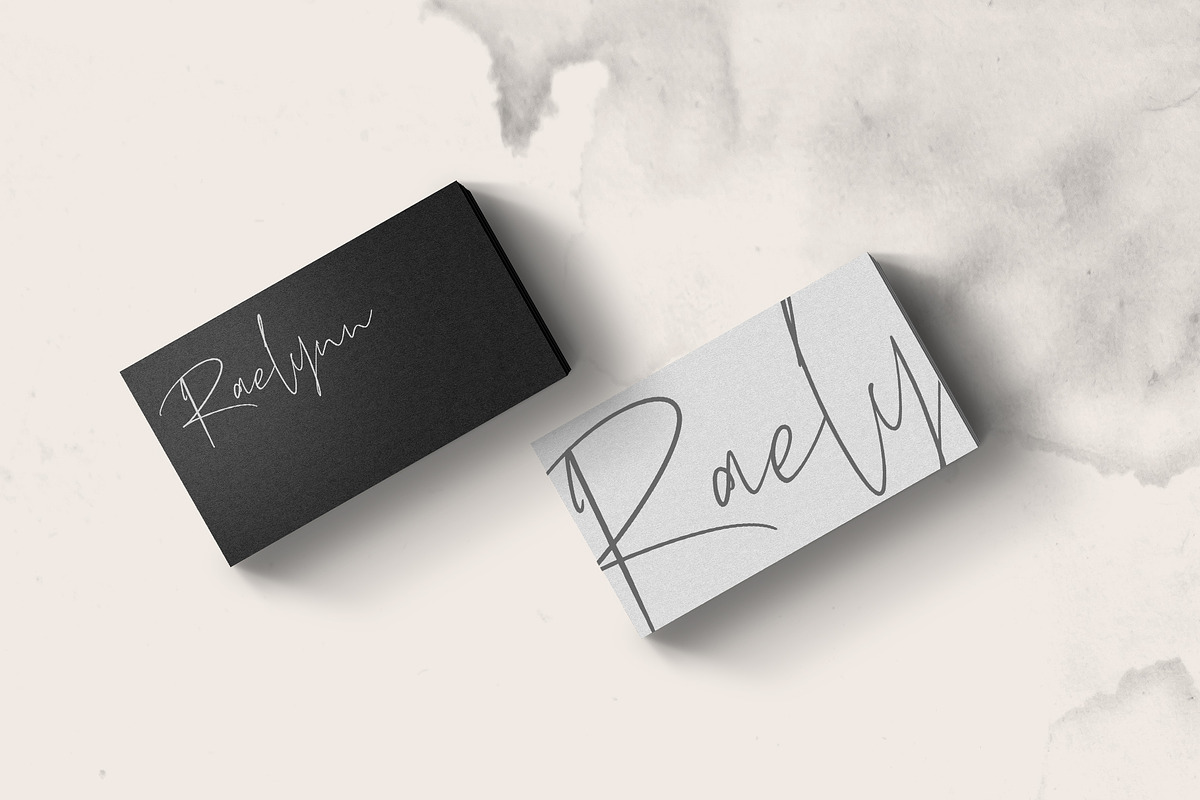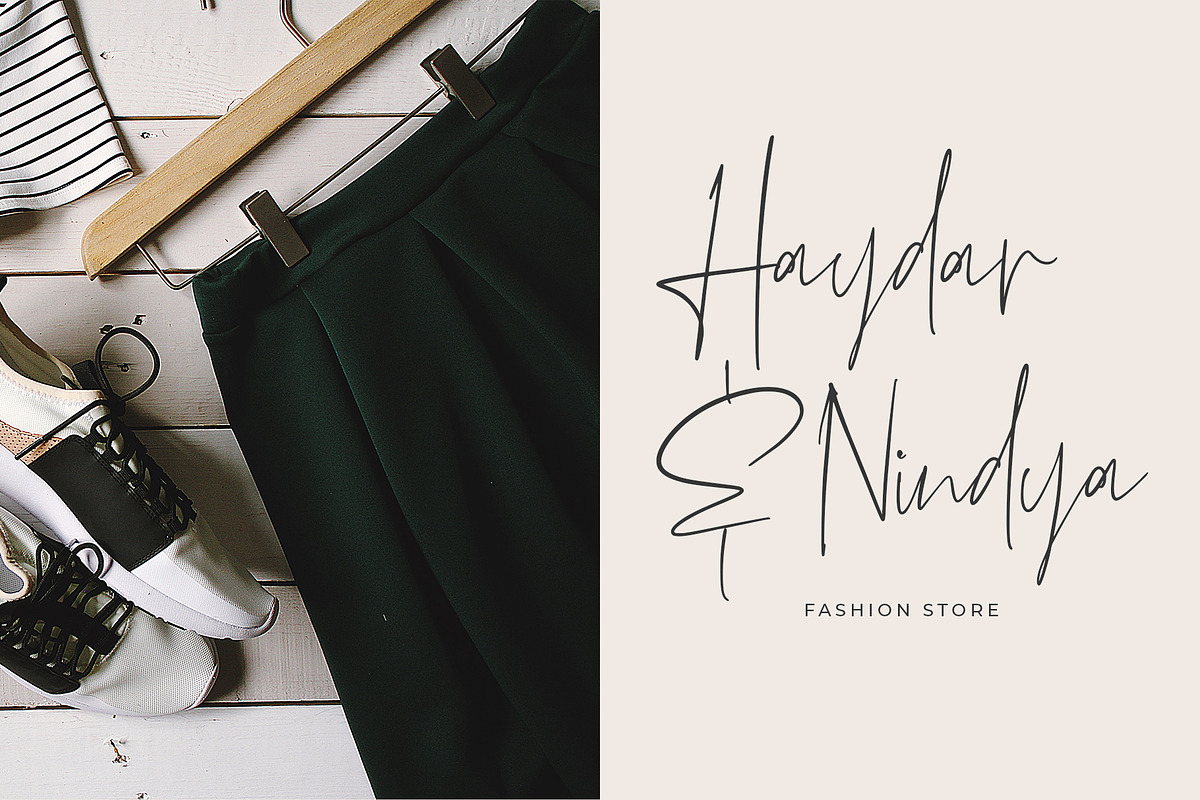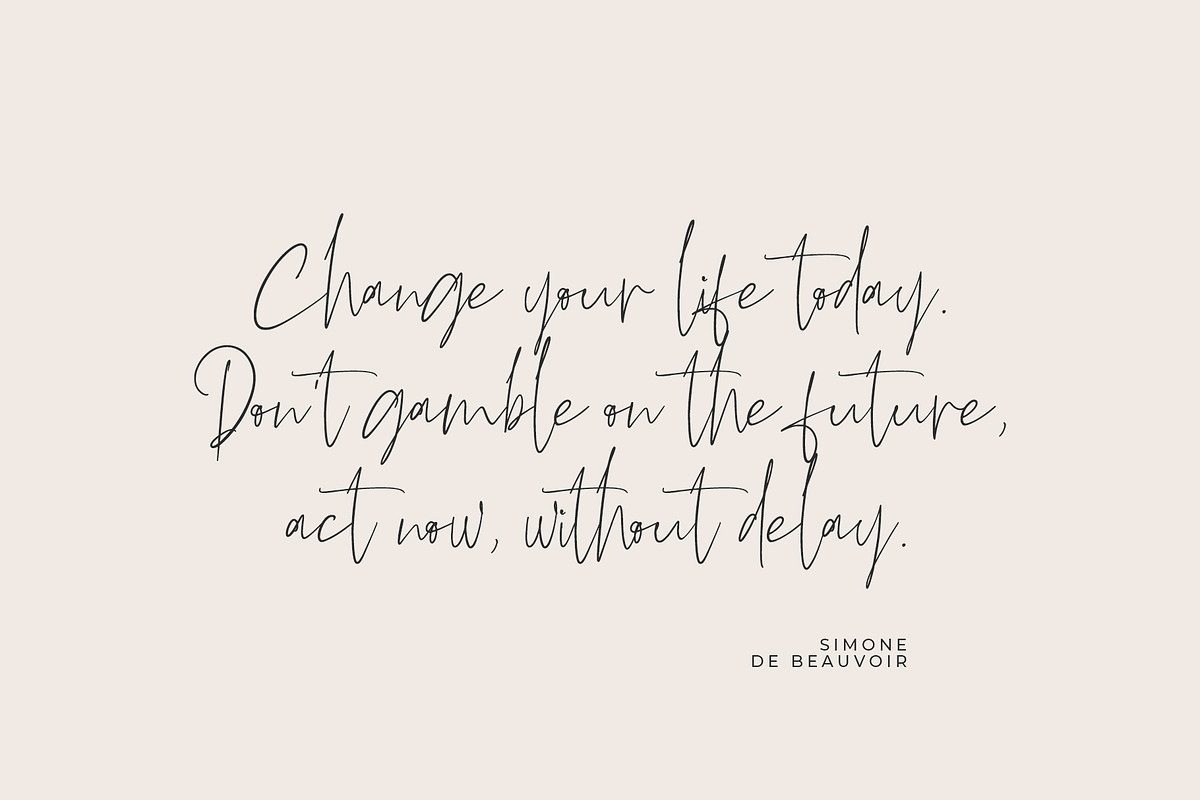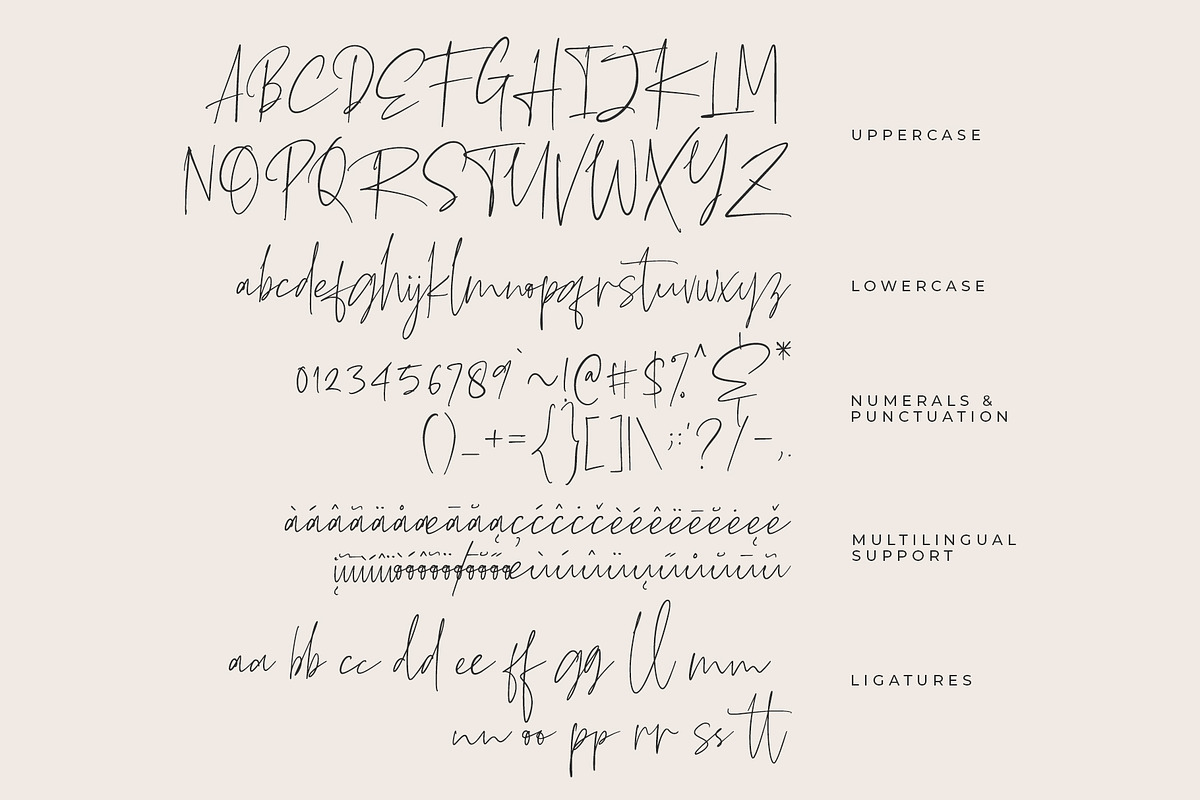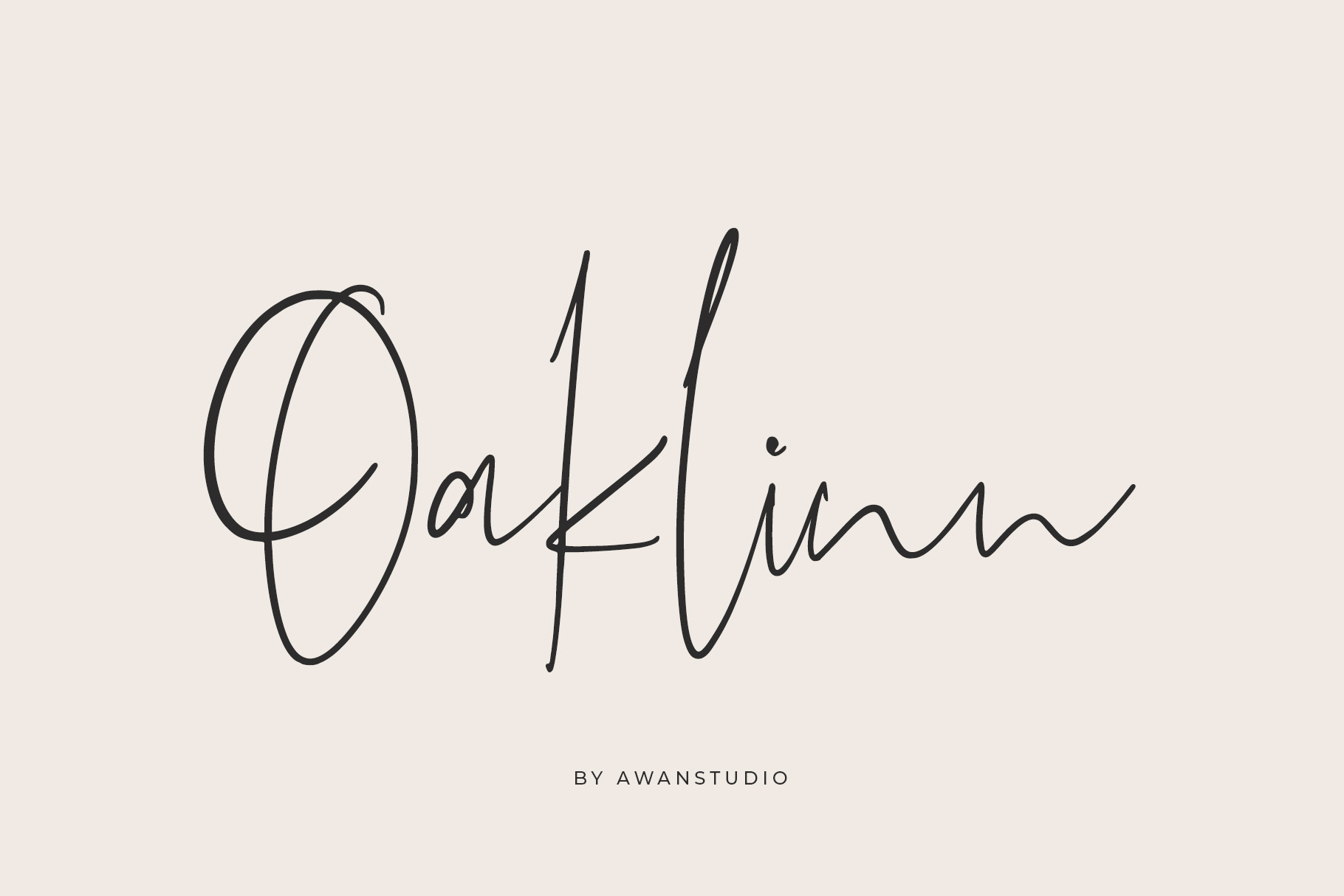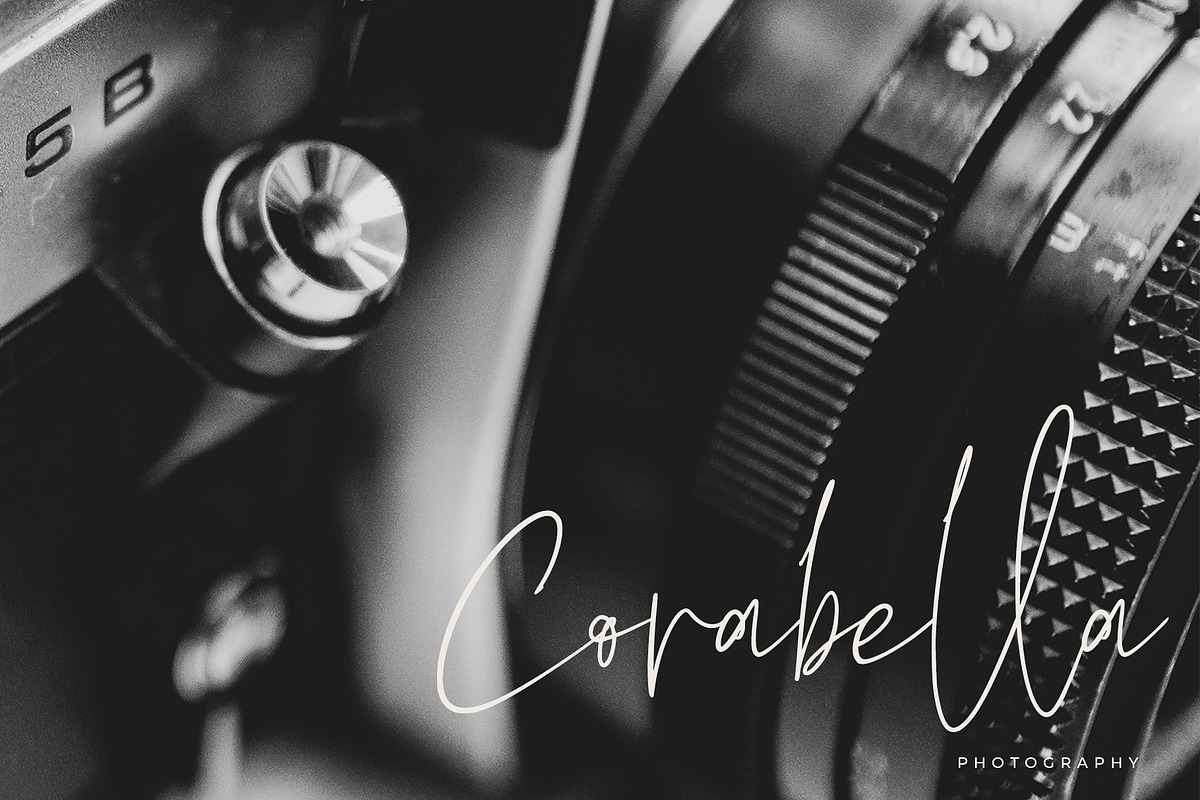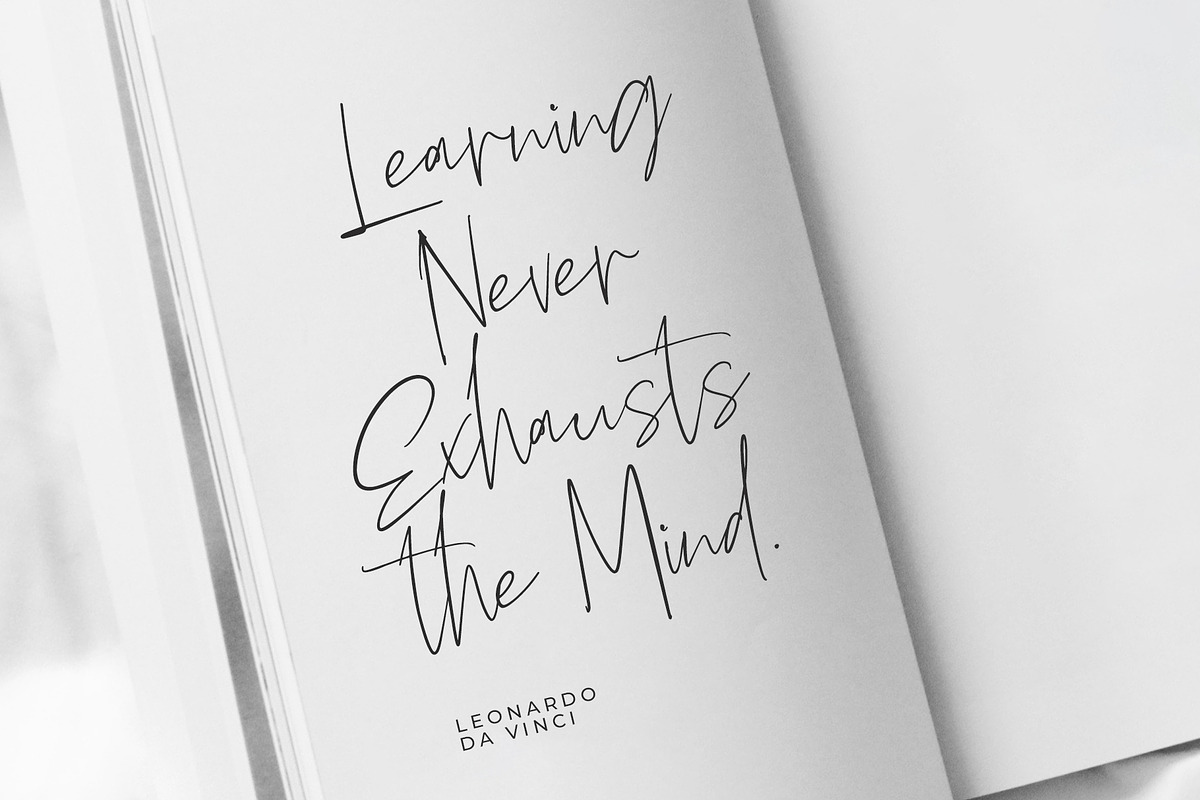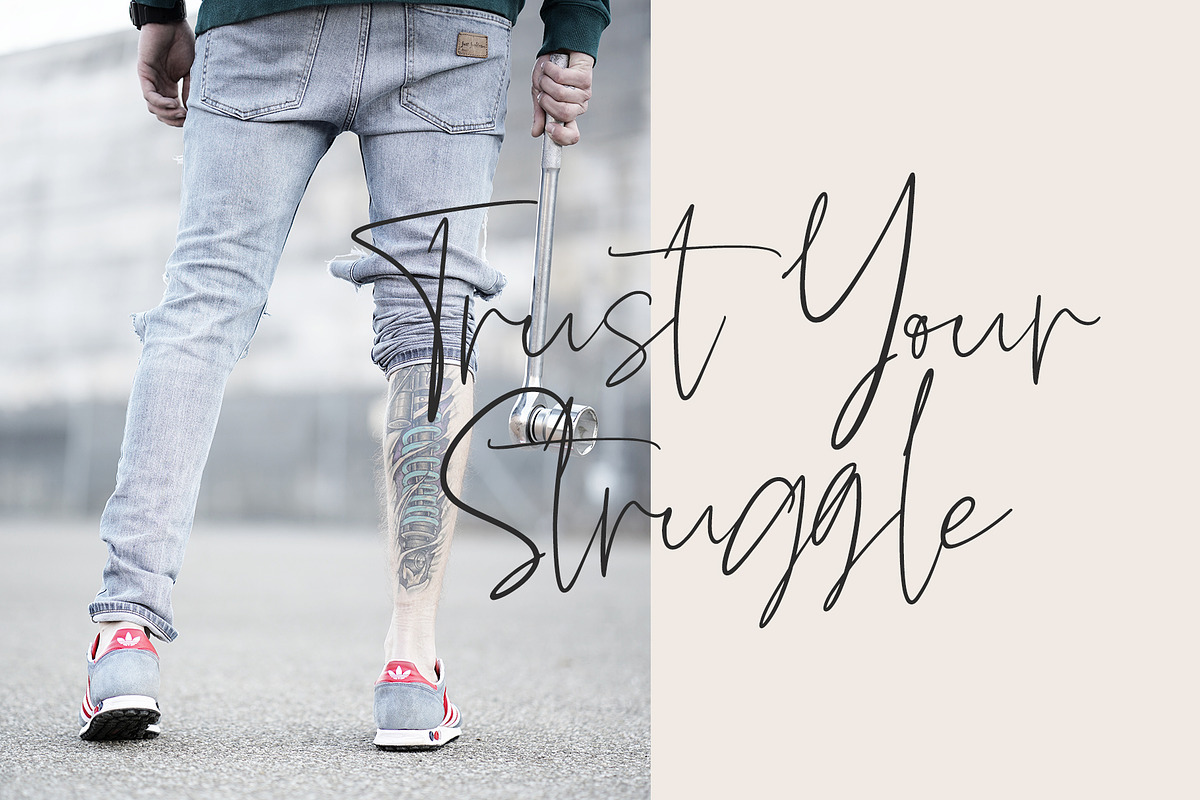
Oaklinn Script Font
Introducing Oaklinn! It allows you to create stunning and easy hand-lettering in an instant. Ideal for the logo, quotes, product label/packaging, fashion, letter, advertising, poster, merchandise, greeting cards, etc